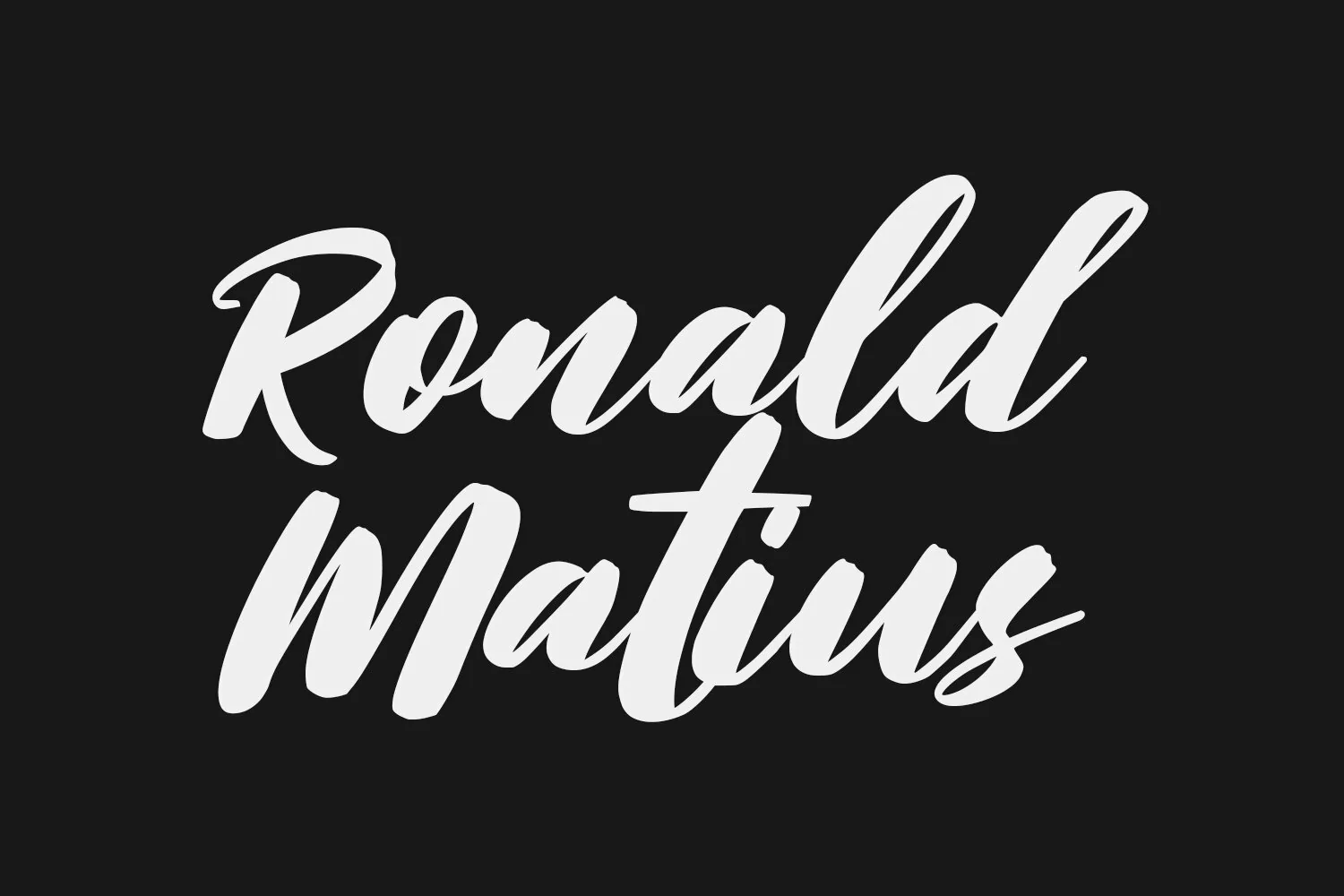
Blackbirdy is a super slanted script font. With bold contrast stroke, slanted, fancy and fun character with a bit of ligatures and lowercase alternates. To give you an extra creative work. Blackbirdy font support multilingual more than 100+ language. This font is good for logo design, Social media, Movie Titles, Books Titles, a short text even a long text letter and good for your secondary text font with sans or serif. Make a stunning work with Blackbirdy font.
Blackbirdy